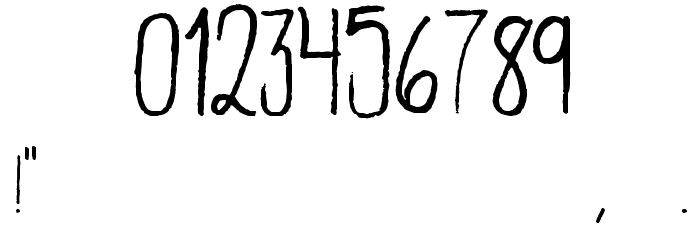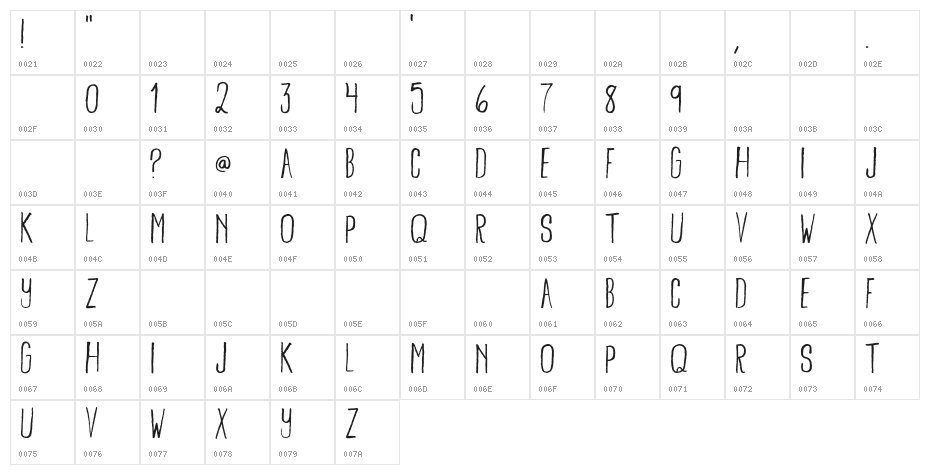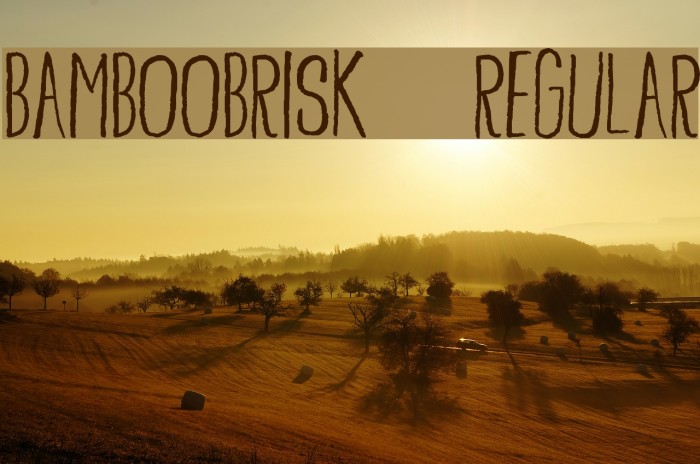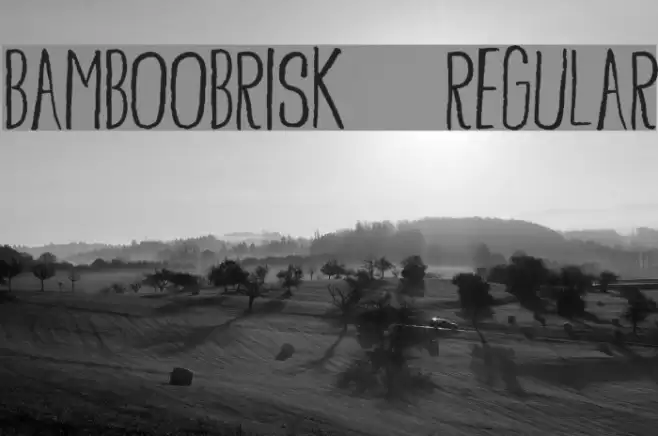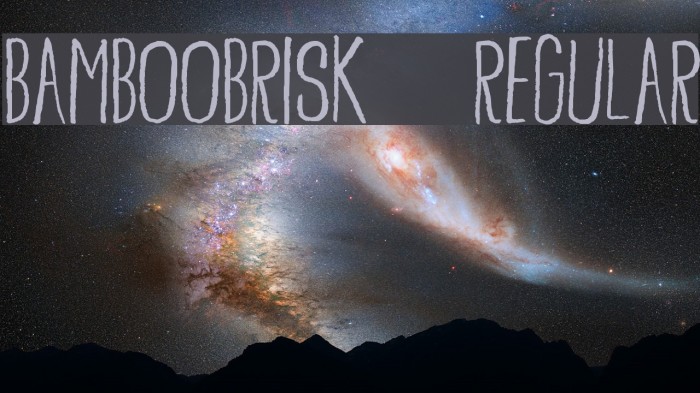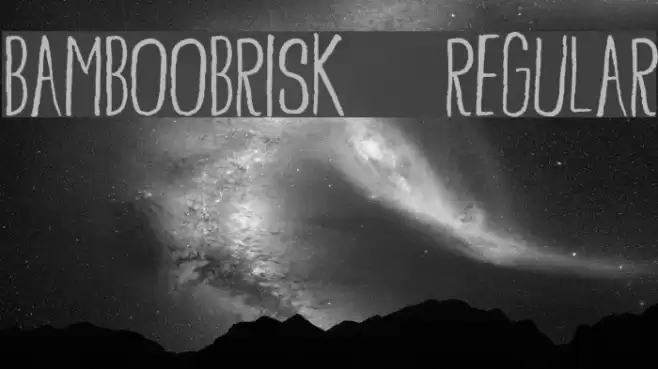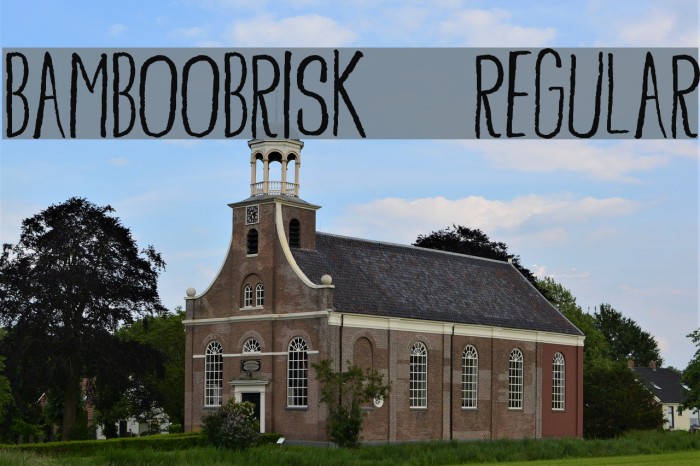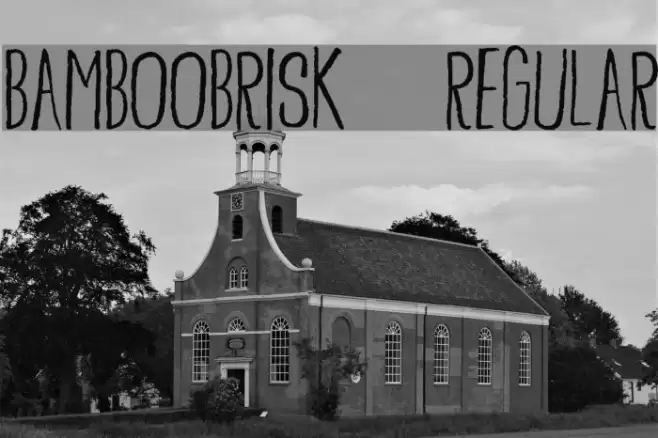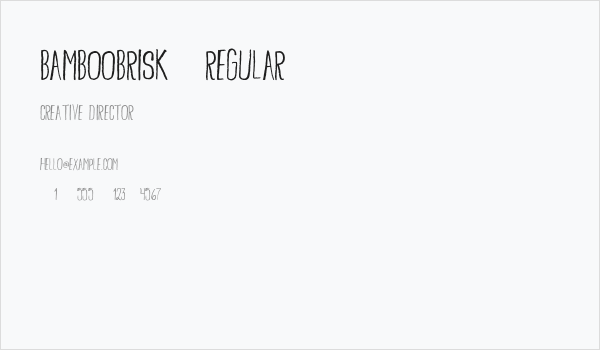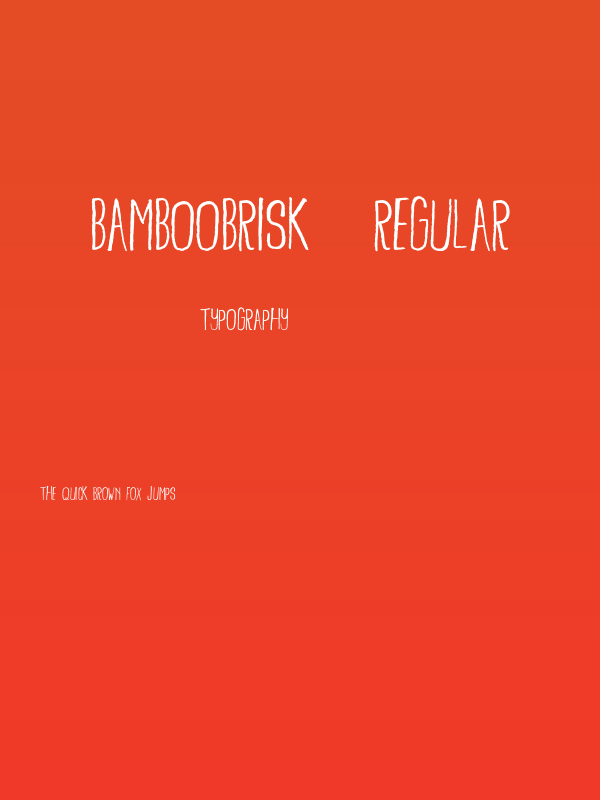
BambooBrisk-Regular Font
BambooBrisk-Regular Description
This font features a hand-drawn, organic style with a natural, flowing appearance. The characters are elongated and slightly irregular, giving them a unique and artistic feel. The strokes vary in thickness, adding a dynamic and lively quality to the text. The overall look is reminiscent of bamboo or brush strokes, which contributes to its rustic and earthy charm. The font maintains legibility while offering a distinctive personality, making it suitable for creative and informal applications.
| Use Case | Headlines, Logos, Artistic projects |
| Proposed Projects | Ideal for projects that require a personal touch, such as invitations, greeting cards, or artistic branding. It can also be used for eco-friendly product packaging or nature-themed designs. |